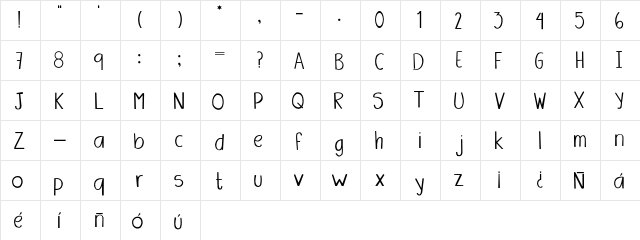
Amanda Regular
| Foundry | Amanda Galindo Martinez |
| Designer | Amanda Galindo Martinez |
Design Context for Amanda Typeface
Amanda takes a measured approach to typography — its balanced proportions and neutral character make it a reliable workhorse for both digital and print work.